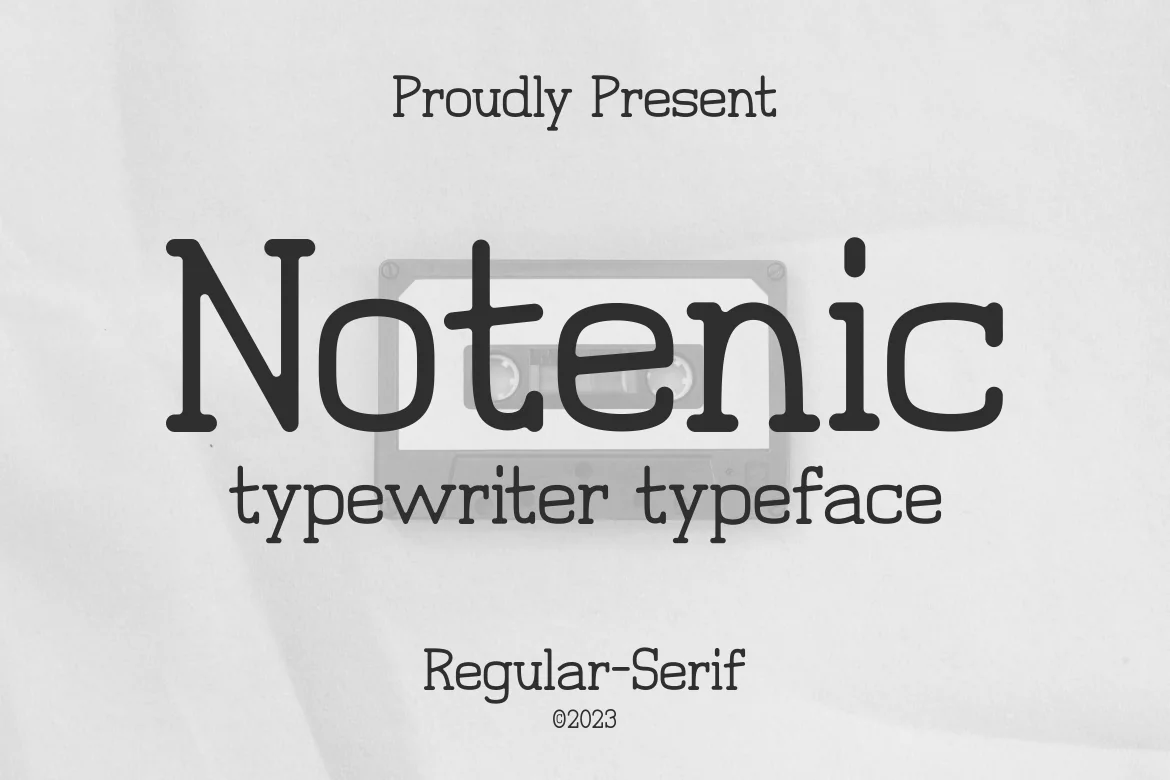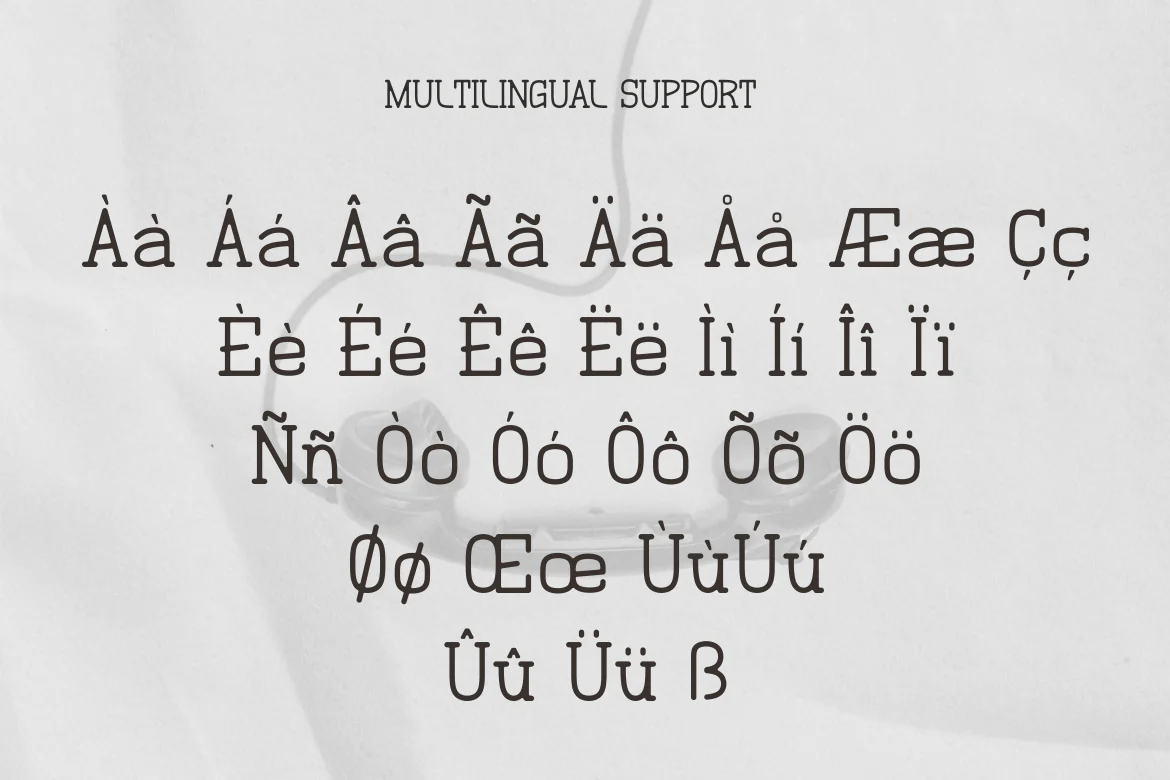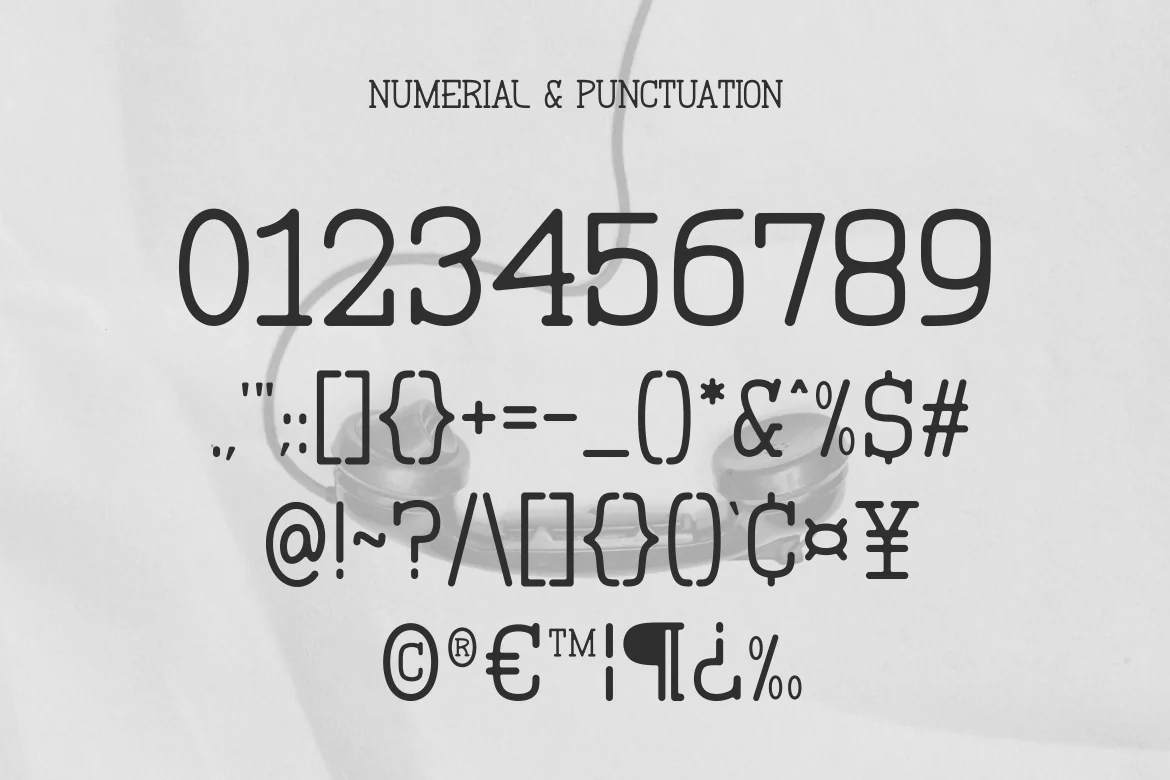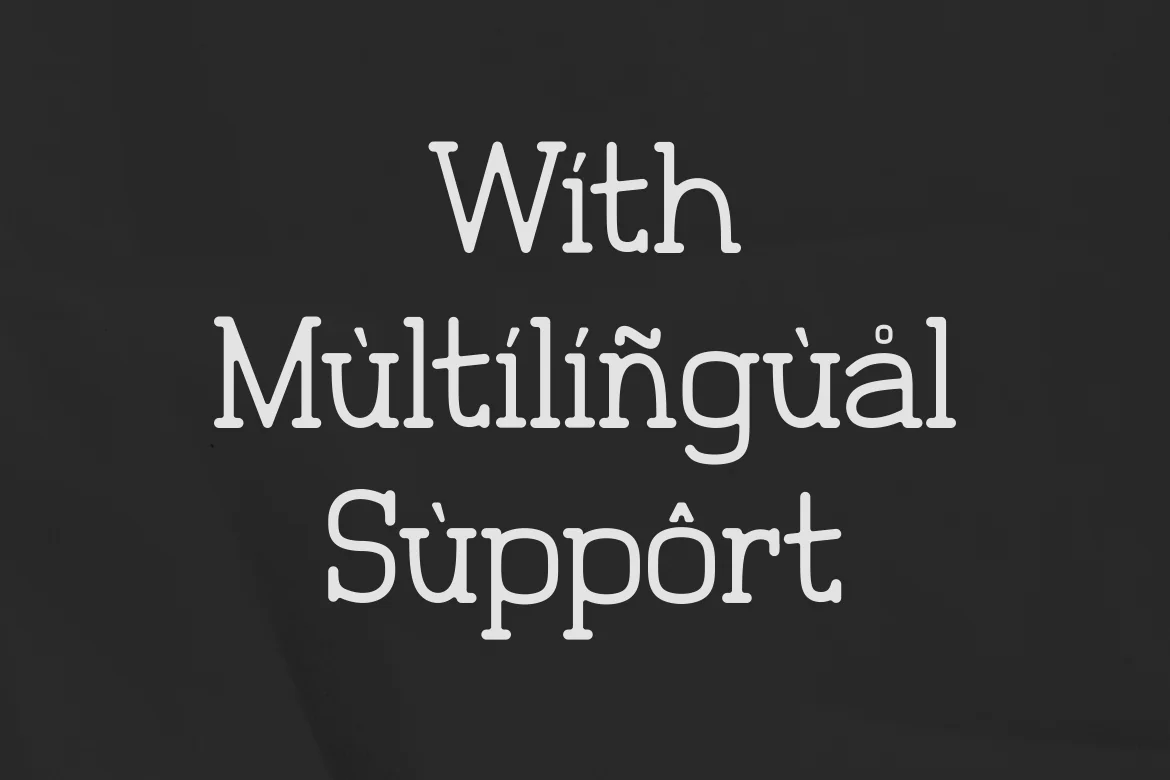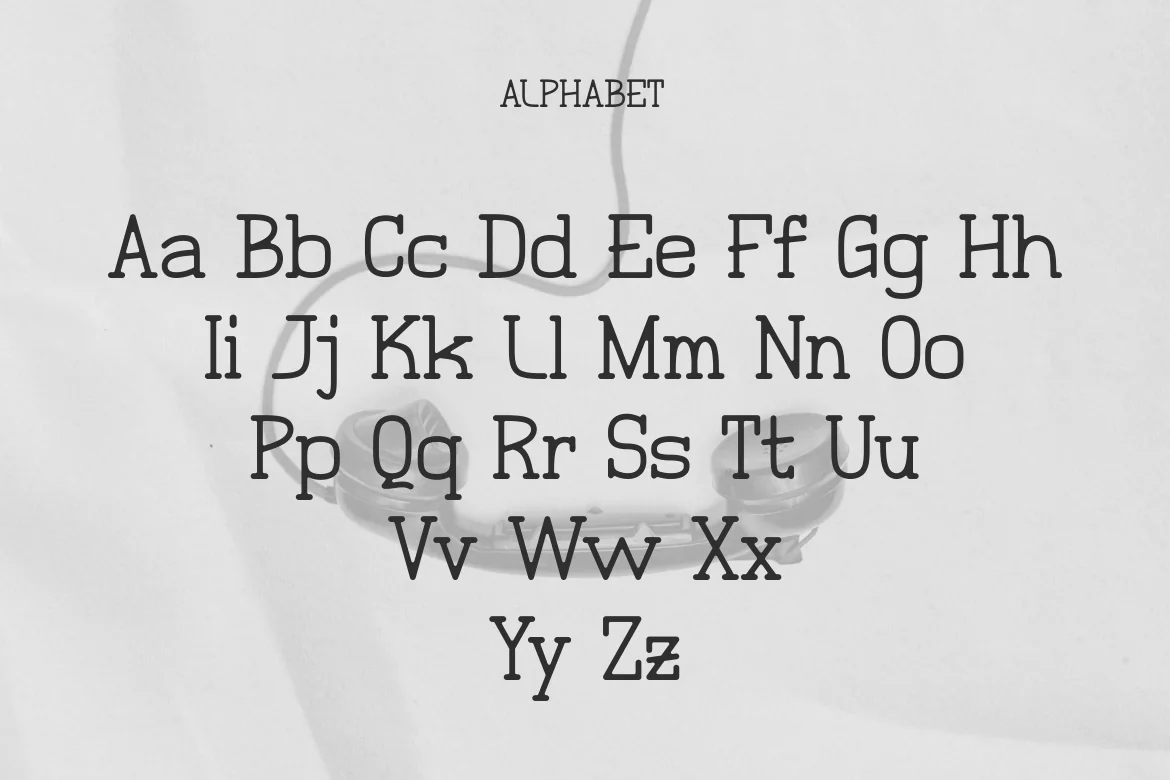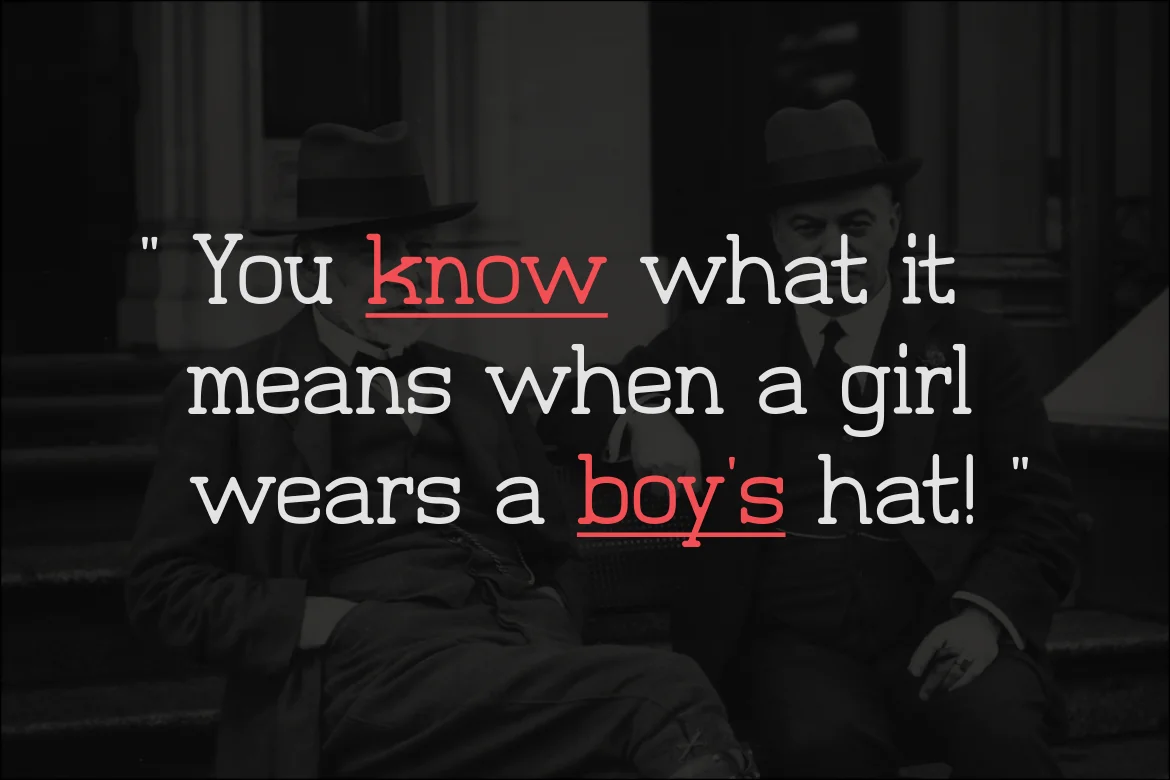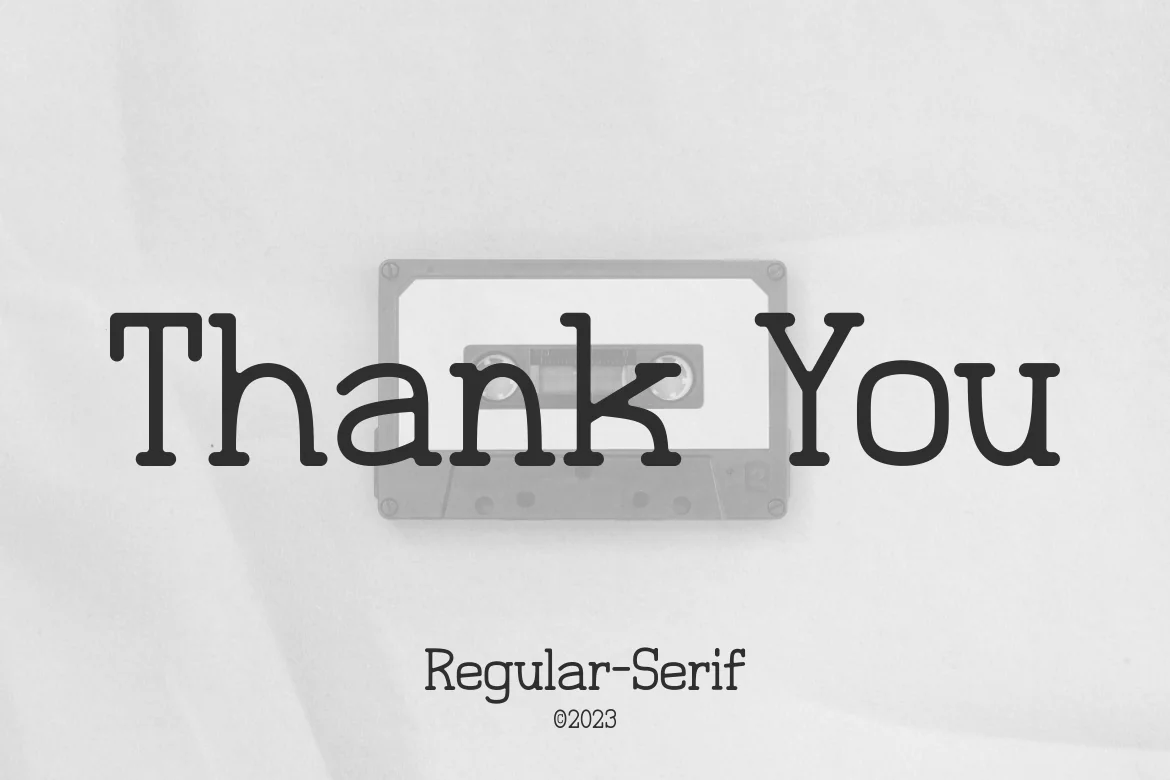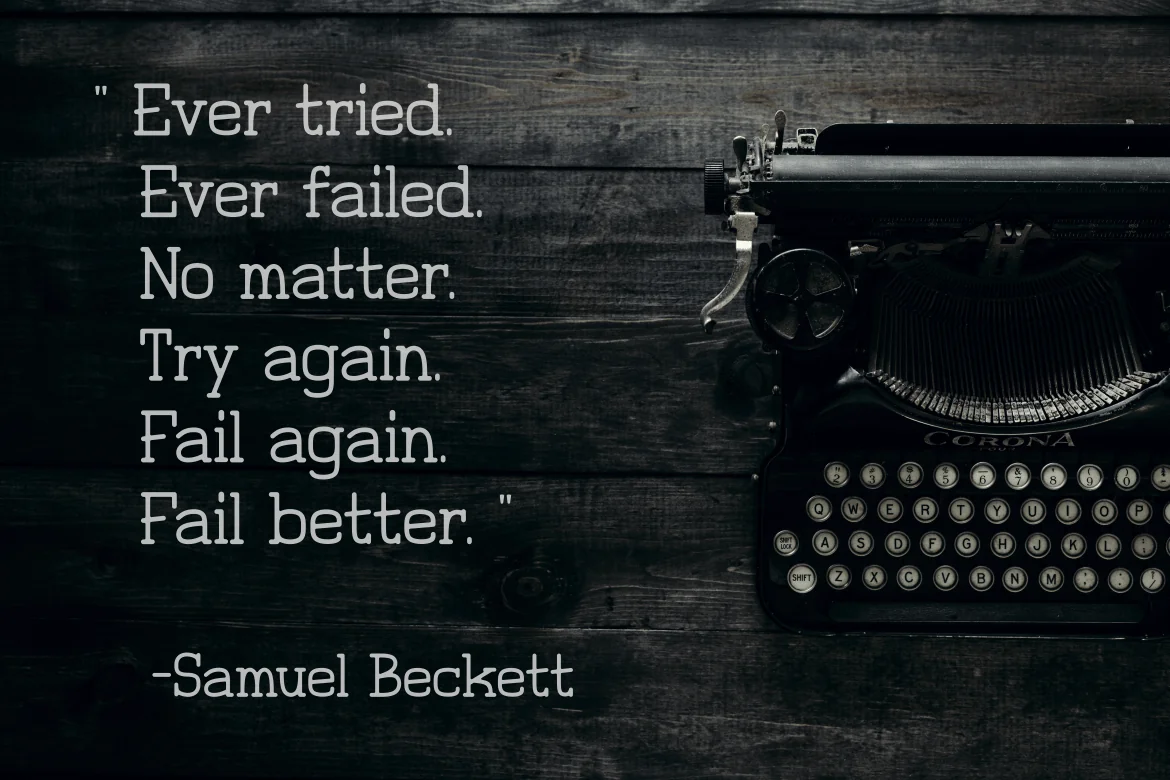
Notenic – Typewriter Typeface
Introducing our new product Notenic – Typewriter Typeface
This font combines traditional serif elements with the aesthetics of a typewriter, creating a captivating font that imparts a classic feel to any design it’s used in. It produces a unique appearance and is often employed to achieve a retro or vintage impression.